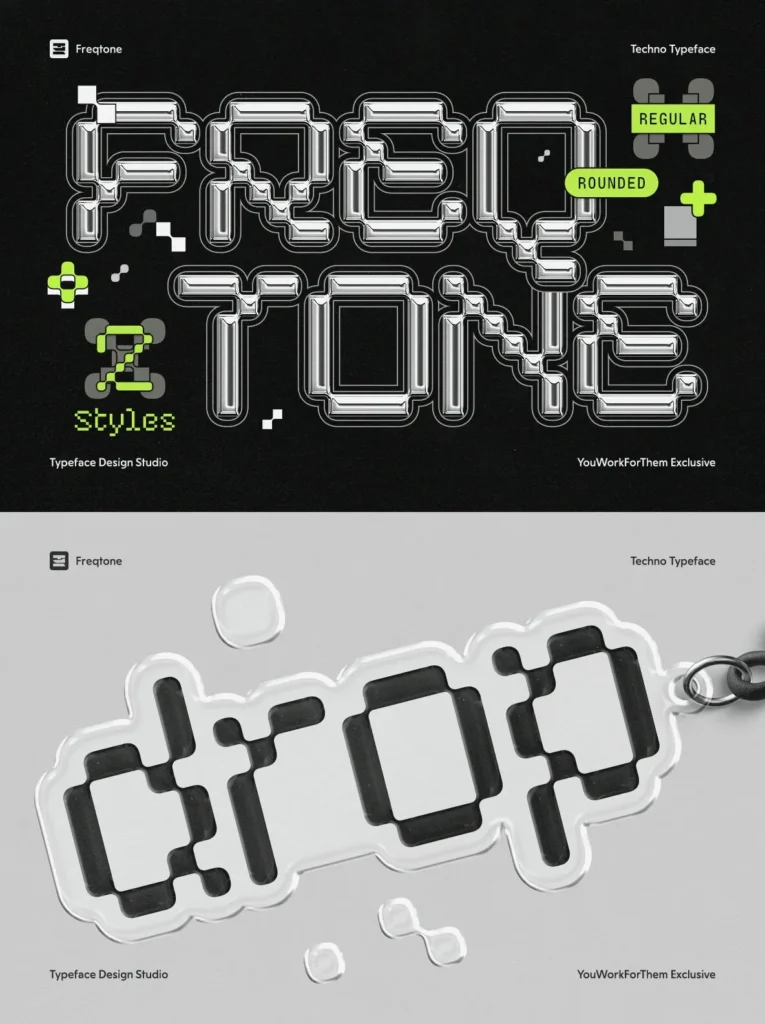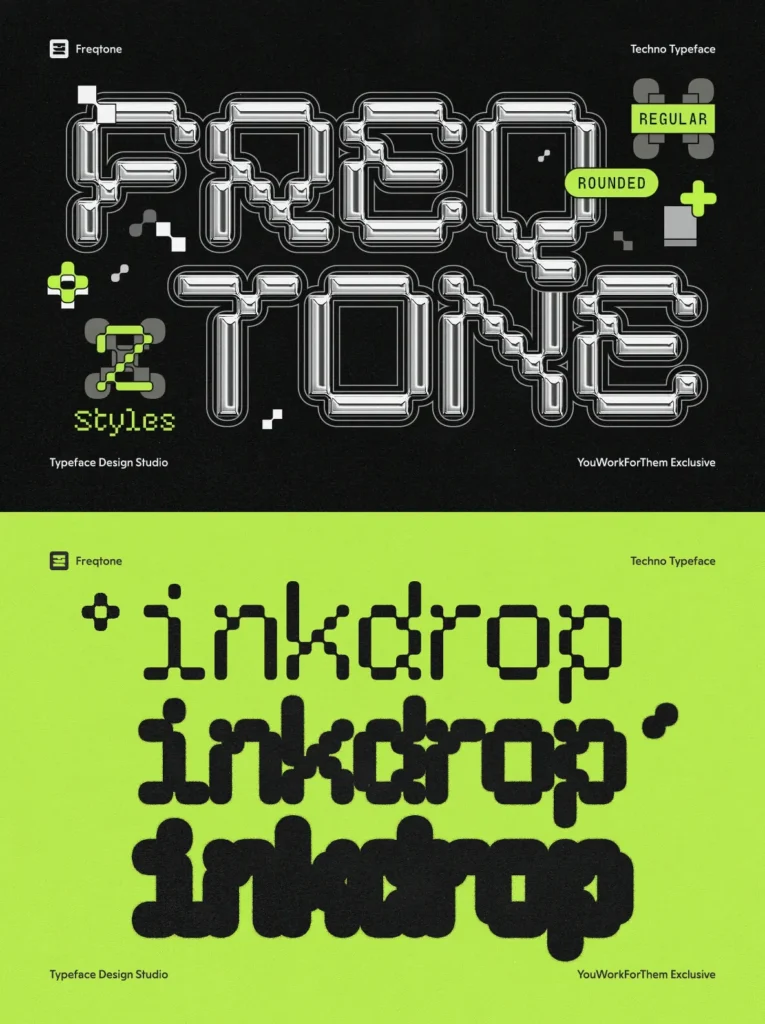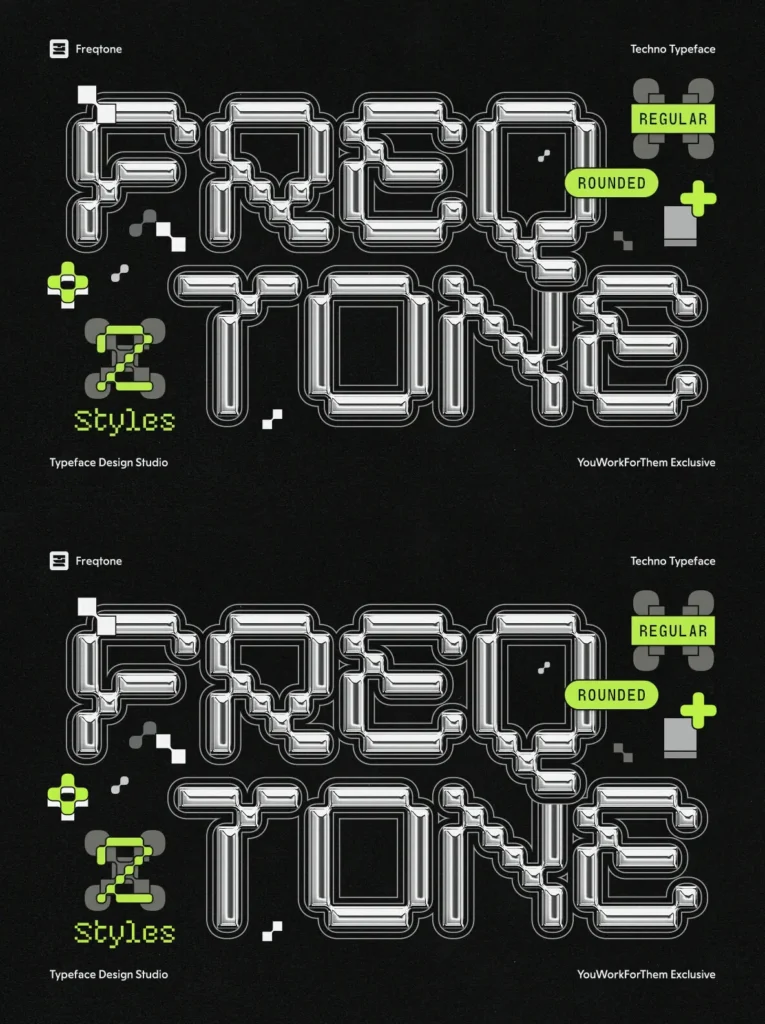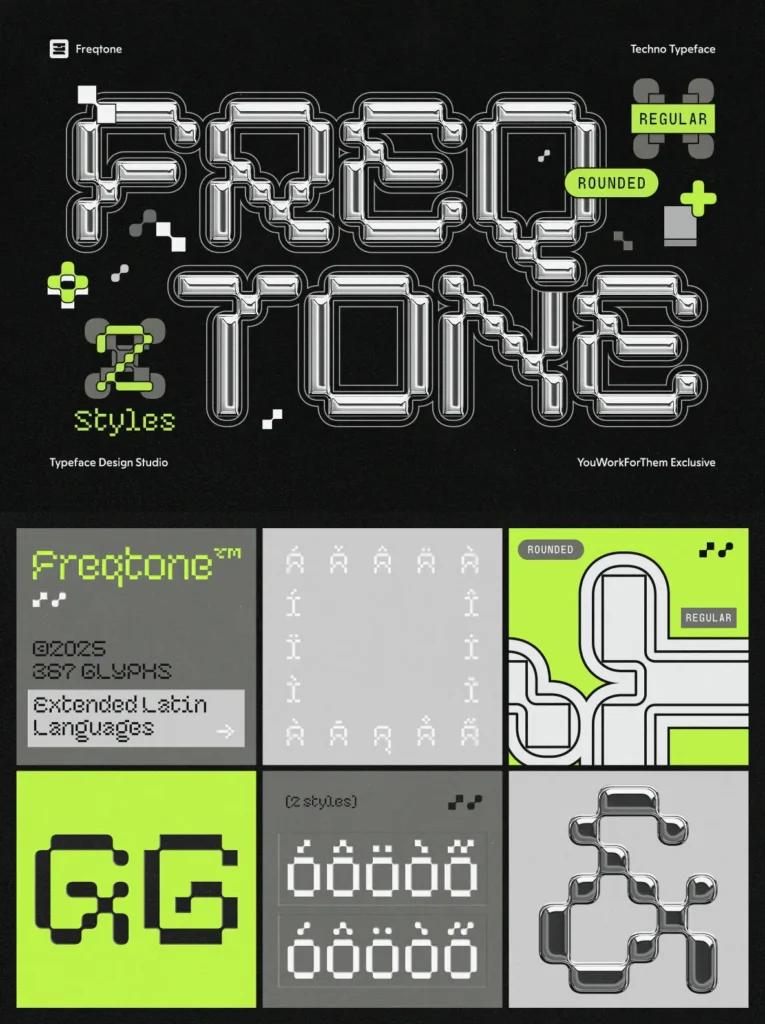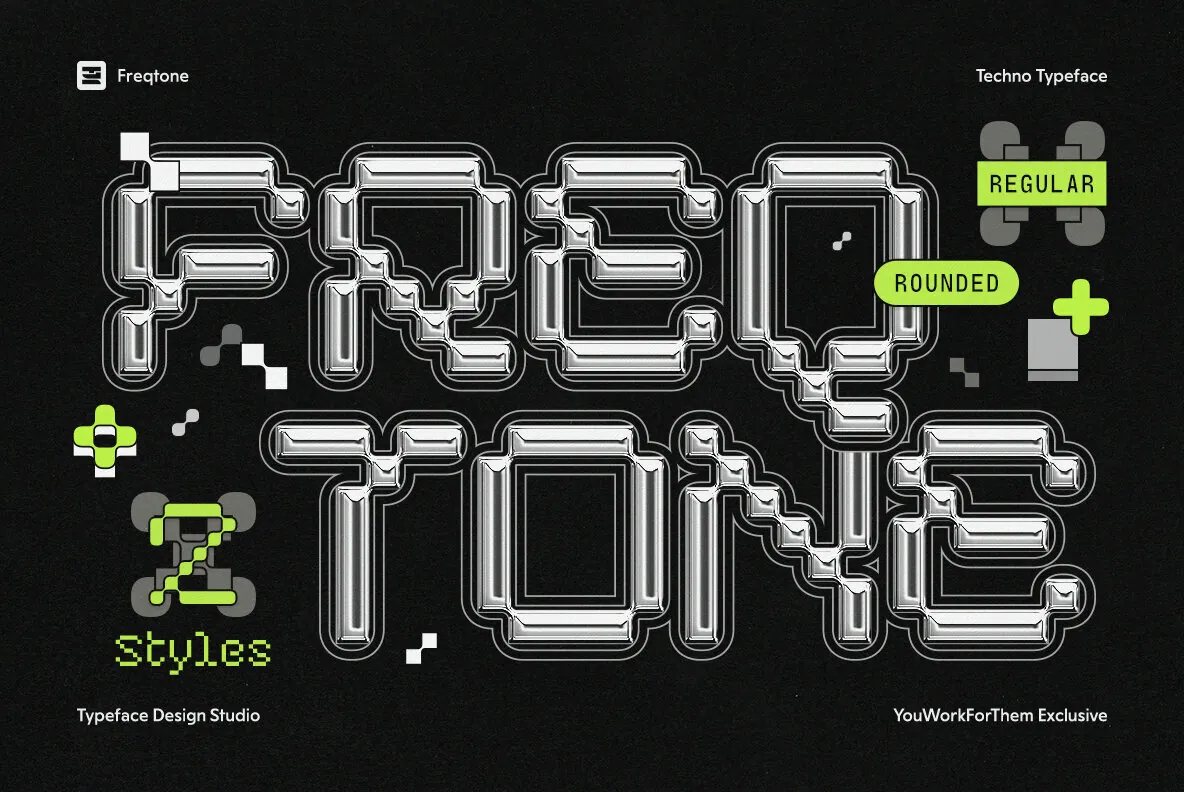
Freqtone: A Pixel-Techno Typeface for Modern Design
Inspired by the late-90s rave flyers and the techno club culture of early digital screens, Freqtone captures the essence of chunky pixel grids and neon aesthetics. Designed as an exclusive offering from Typeface Design Studio for YouWorkForThem, it seamlessly integrates into the modern designer’s toolkit. Whether it’s for social media campaigns, gaming, or motion-driven branding, Freqtone excels where bold type is paramount.
Two Styles, Endless Applications
Freqtone offers two distinct weights, each boasting over 300 glyphs:
Regular
– An angular, sharp, grid-inspired style, perfect for projects emphasizing digital texture.
Rounded
– Smooth and refined, ideal for headlines and bold visual statements.
Creative Control with OpenType Features
For designers seeking flexibility, Freqtone is equipped with advanced features:
Stylistic Alternates and Sets for diverse forms.
Standard and Discretionary Ligatures for unique pairings.
Localized Forms for global adaptability.
Crafted for Modern Media
Freqtone shines as a title in video game intros, layered visuals for clubs, or defining brand voices on platforms like Instagram. It marries the raw nostalgia of the Y2K era with today’s design finesse.